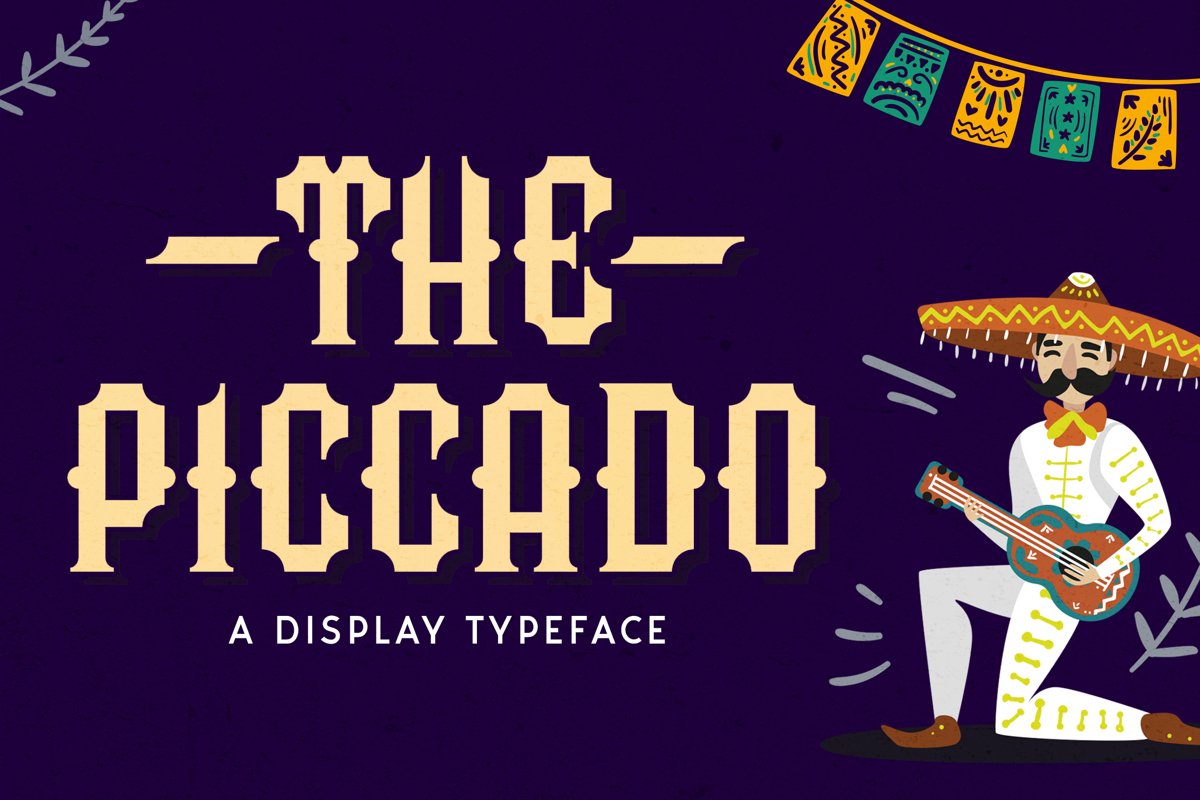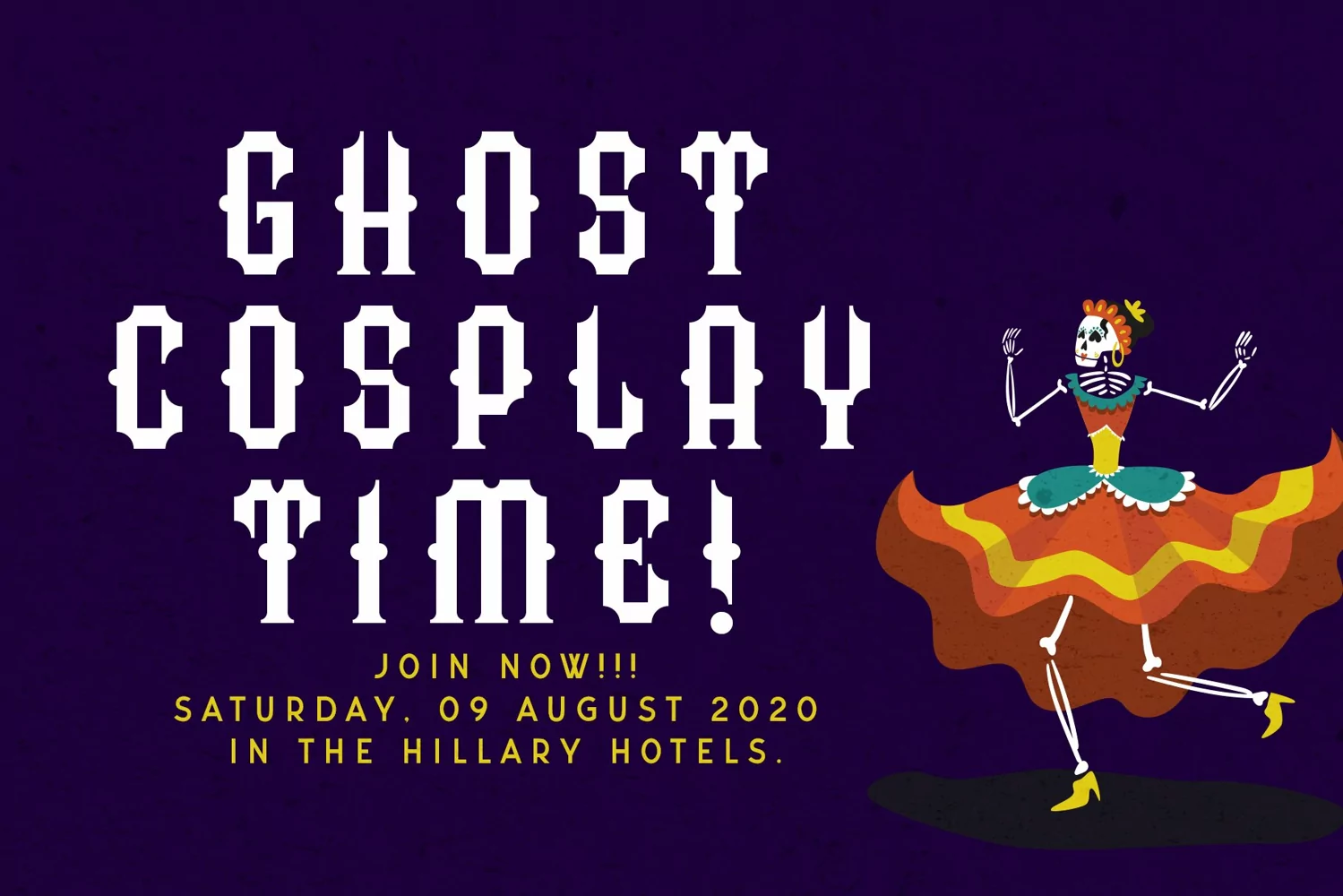
Piccado
Piccado is a display typeface. Perfect for display, quotes, business card, event needs, craft needs, packaging, branding, headline, header, tittle, poster, and many more.